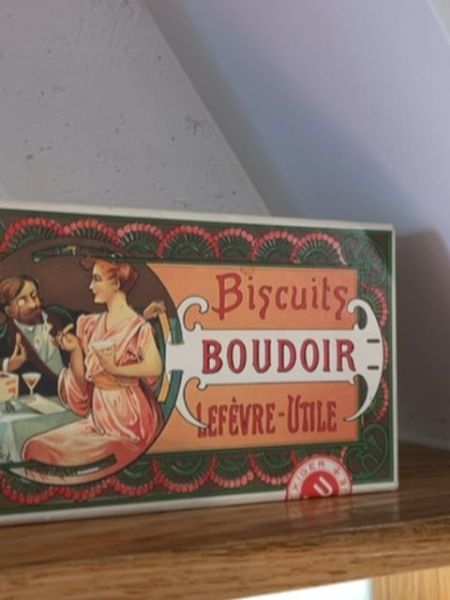
Biscuits Boudoir Lefèvre-Utile
A sweet and delicate biscuit, often enjoyed with tea or used as a base in desserts.
1886
France
The typography uses a mix of serif fonts for an elegant, vintage feel. The brand name 'Lefèvre-Utile' showcases a strong and bold typeface, contrasting with the more delicate script used for other text, enhancing the luxurious and classic appearance of the packaging.
The packaging features intricate historical illustrations that evoke a sense of elegance and sophistication, with a focus on a social scene. The use of ornate borders and bold colors highlights the artisanal quality of the product.
- Lefèvre-Utile, commonly known as LU, is a renowned French biscuit manufacturer.
- Biscuits Boudoir are also commonly known as Ladyfinger cookies and used in desserts like Tiramisu.
- The brand has been synonymous with quality and tradition in biscuit making since the 19th century.